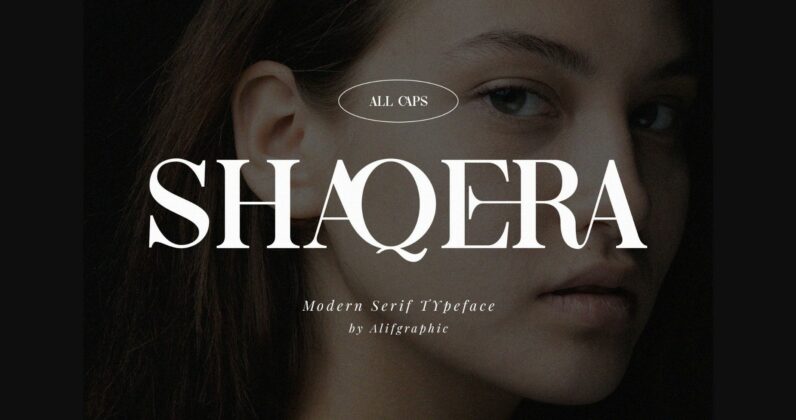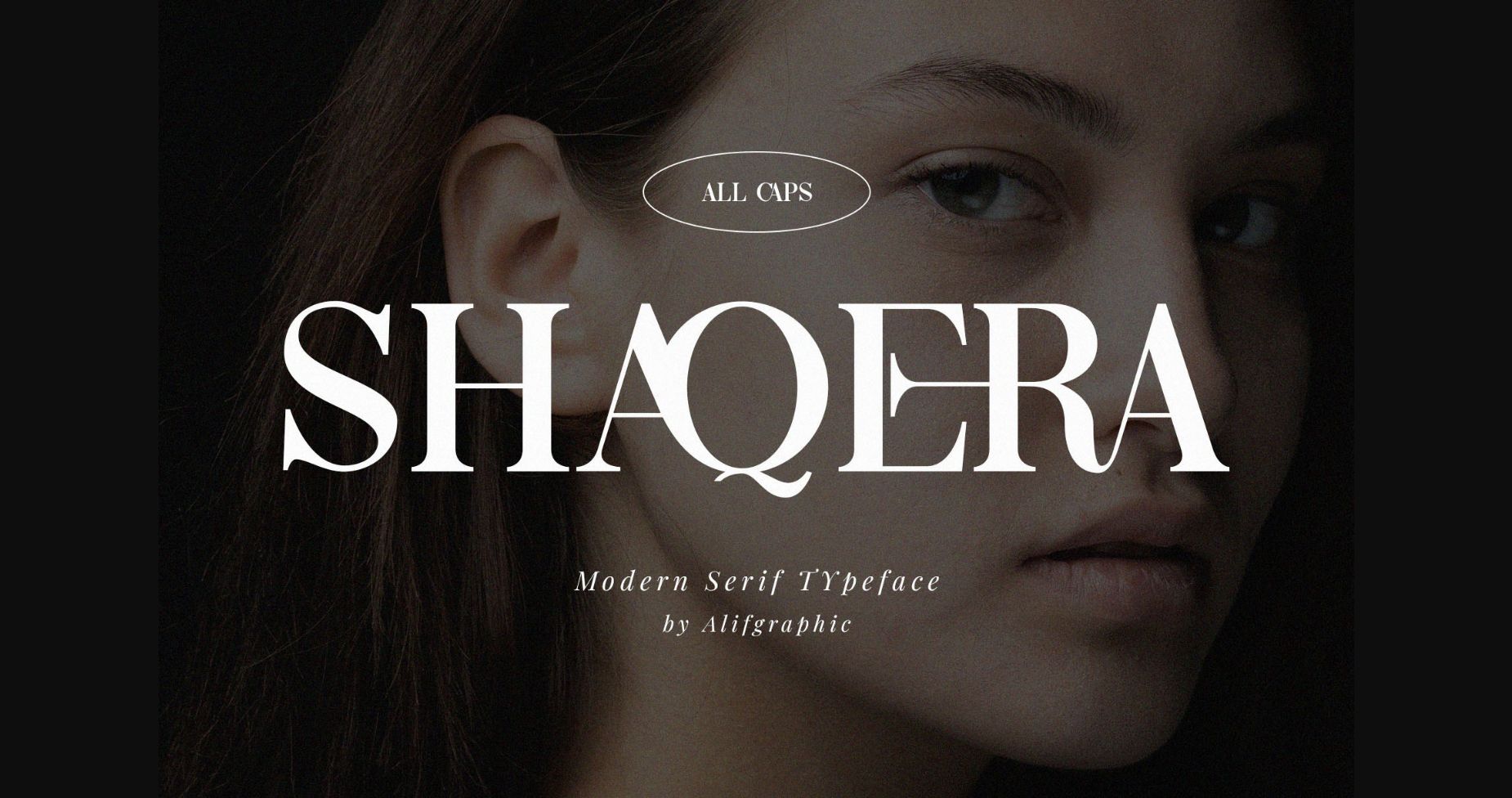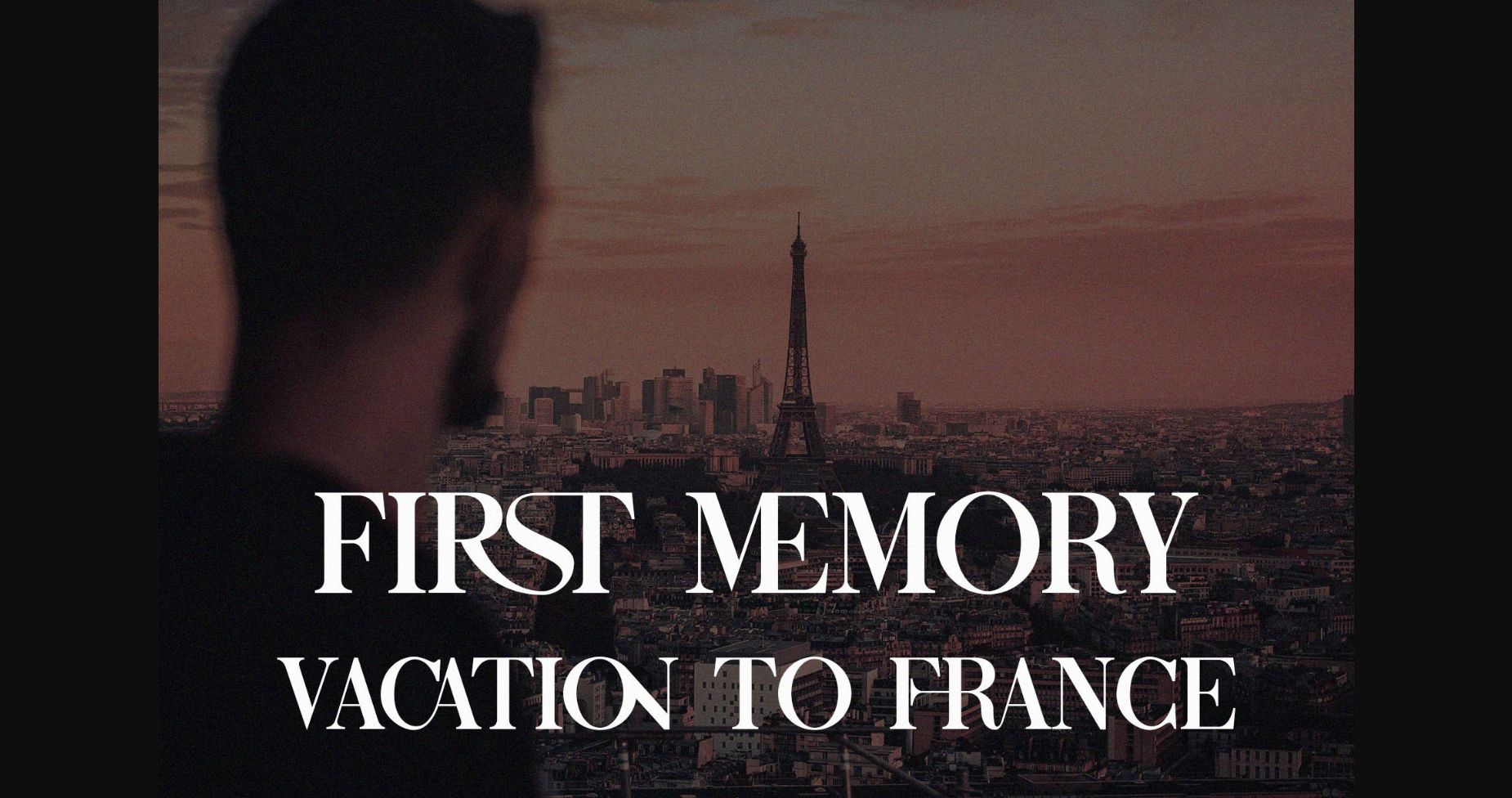
About Shaqera Font
Shaqera is a classic and classy sans serif font with a modern and nostalgic feel. It is great for logos, magazines, social media posts, and many more. If you need a touch of elegance for your designs, this font was created for you!